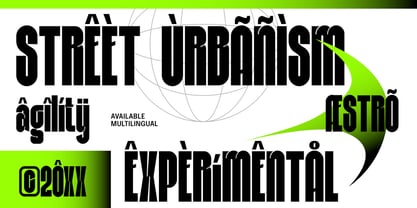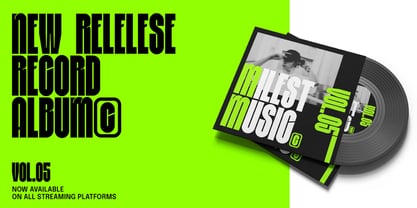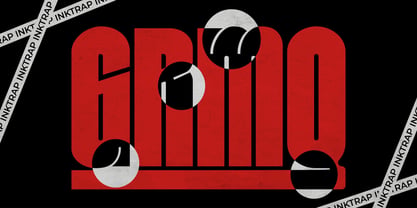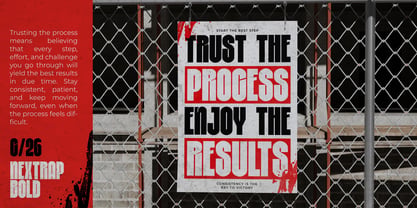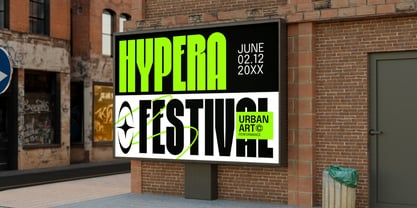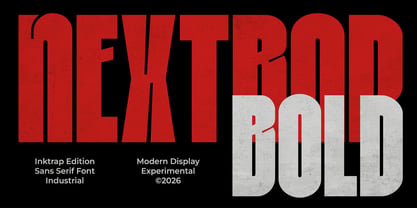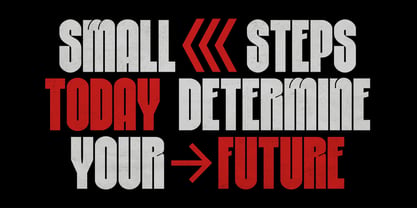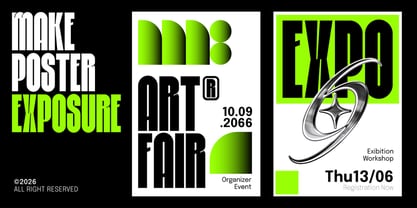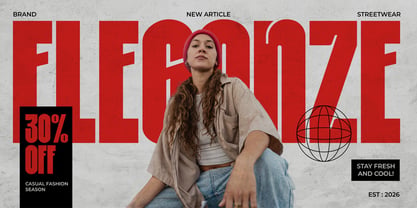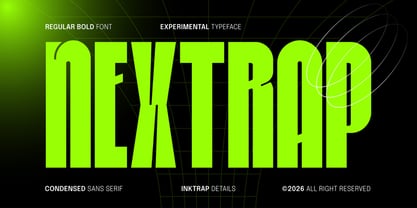
Nextrap
by Steptype
The Nextrap Font Family was designed by Saeful Maarif and published by Steptype. Nextrap contains 2 styles and family package options. More about this family
Nextrap is a bold condensed sans serif that pushes modern typography into a more expressive direction. Built with sharp geometric proportions and distinctive inktrap details, Nextrap delivers a powerful visual impact while maintaining exceptional readability. The combination of ultra-condensed letterforms and precision-cut ink traps creates a futuristic, industrial aesthetic that feels both functional and experimental.
Designed for designers who want typography with a strong attitude, Nextrap excels in branding, posters, editorial layouts, sports graphics, technology products, fashion campaigns, and high-impact advertising. Its tall, space-efficient construction allows you to create massive headlines without sacrificing clarity, making it ideal for contemporary visual identities.
Whether you're building a cutting-edge startup, a streetwear label, an esports brand, or a futuristic campaign, Nextrap gives your typography a bold, unmistakable voice.